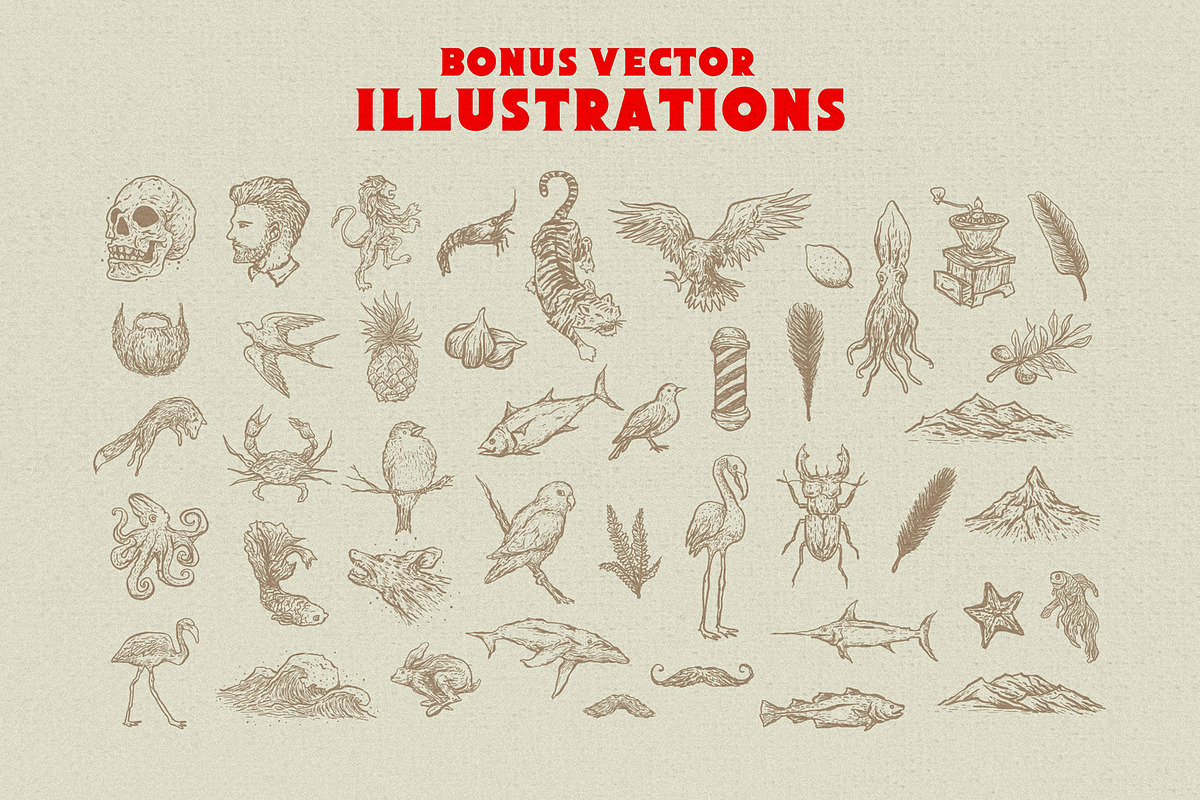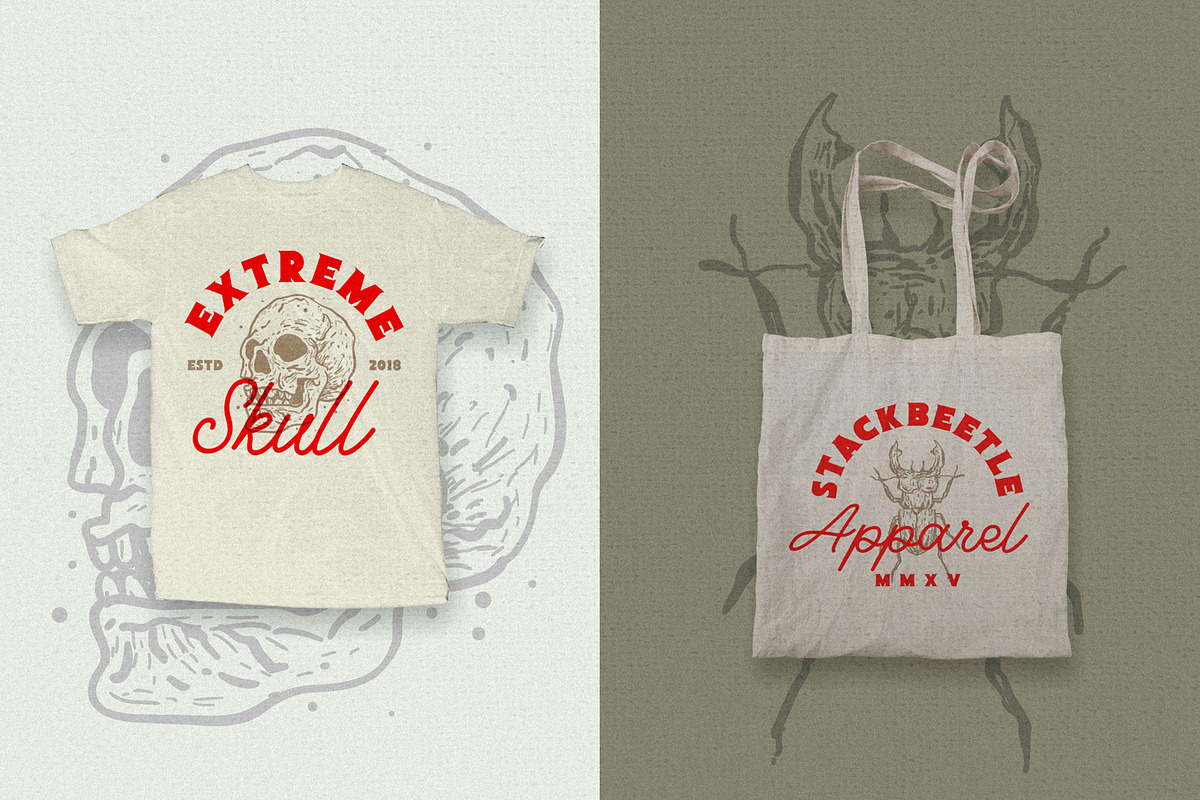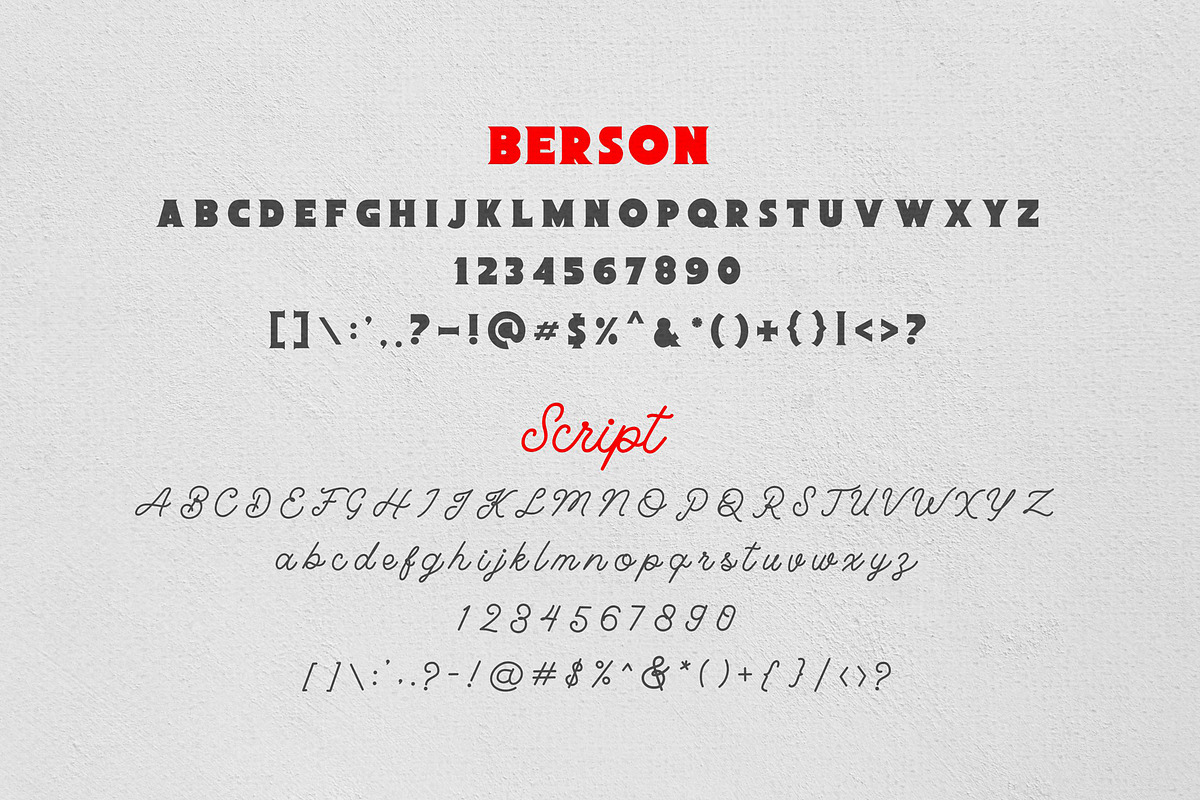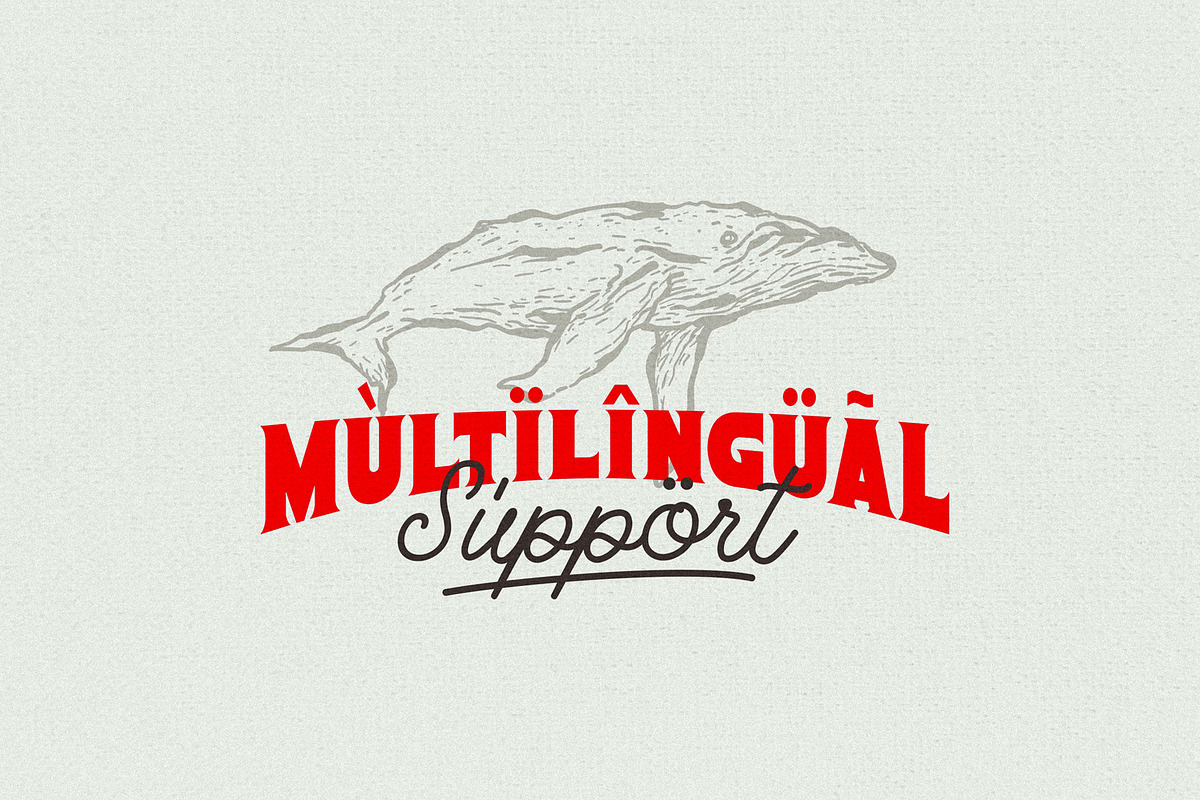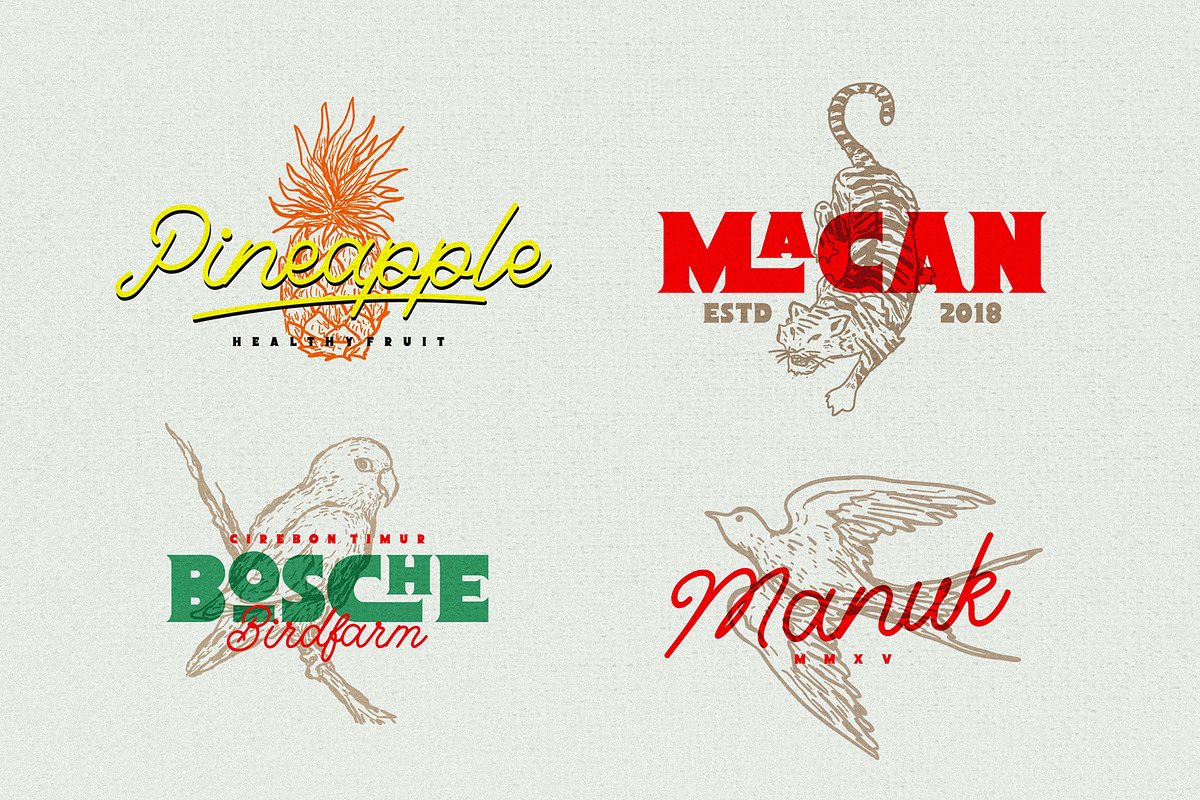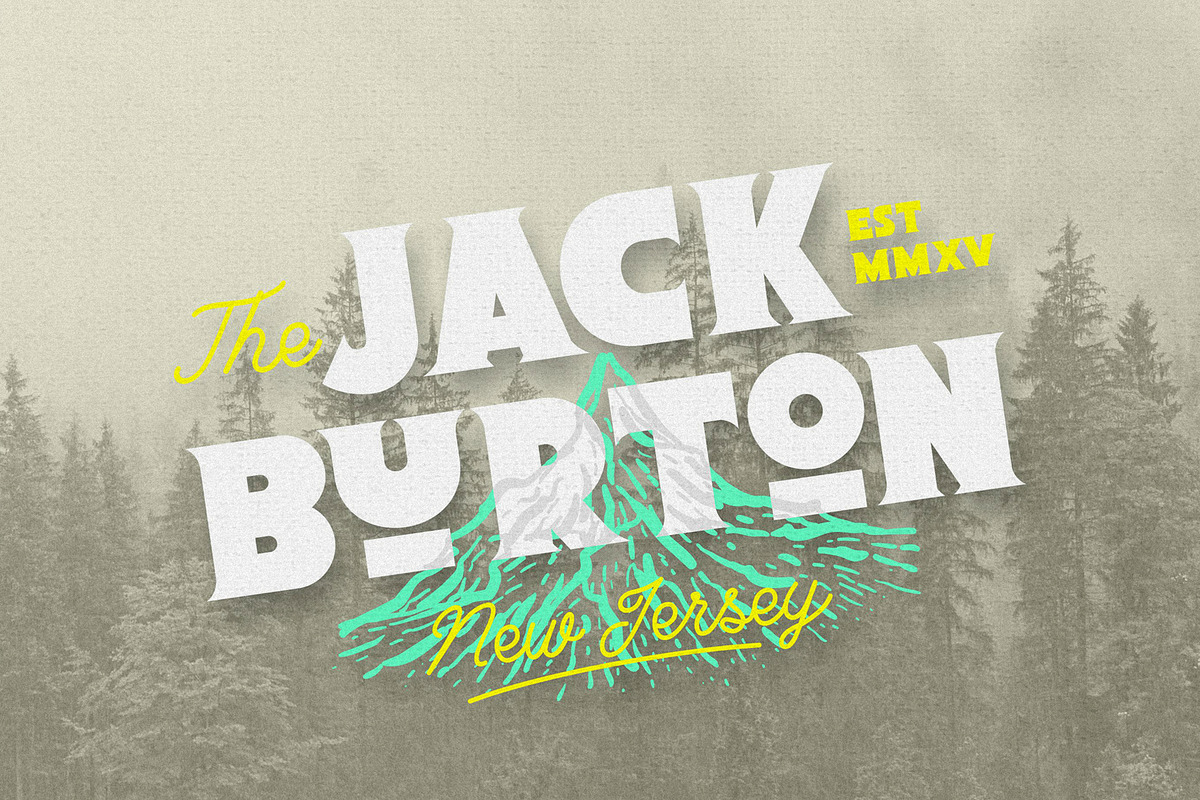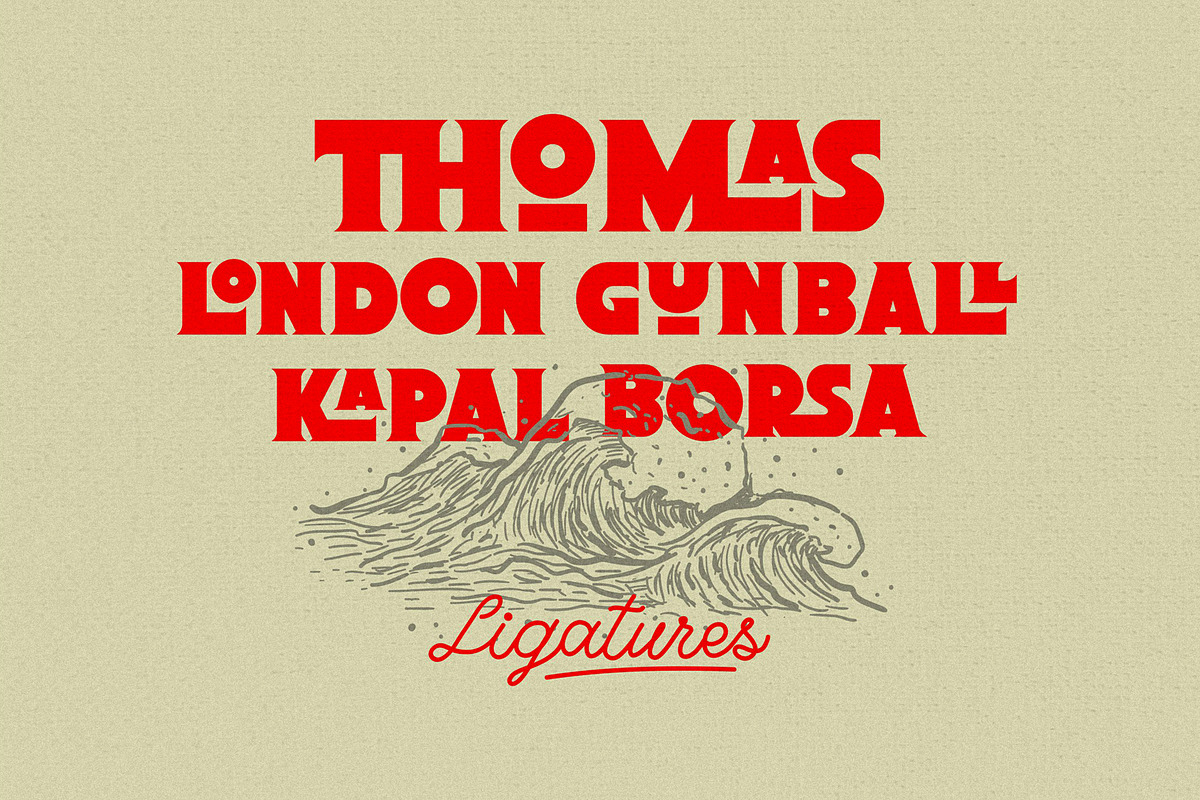
Berson Font Duo + Bonus
Vintage, Modern, and Bold font. Perfect for logo, poster, headline, T shirts, etc.
Comes with 3 font files, and more than 30 ligature, also available in script version
Berson Font Duo + Bonus by 160 Studio fits naturally into Branding, posters, packaging, typography.